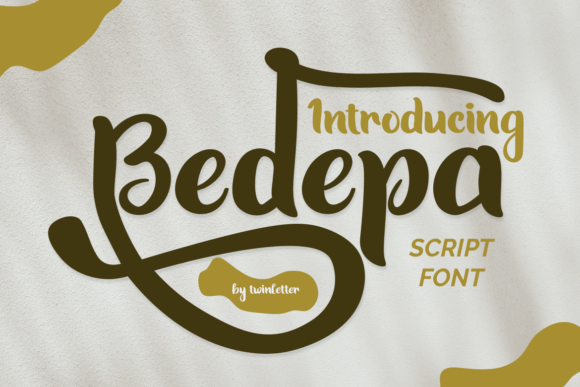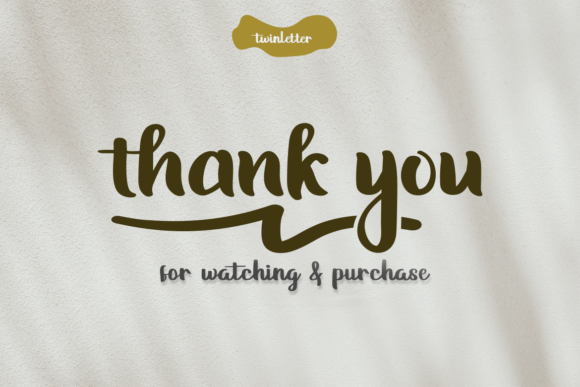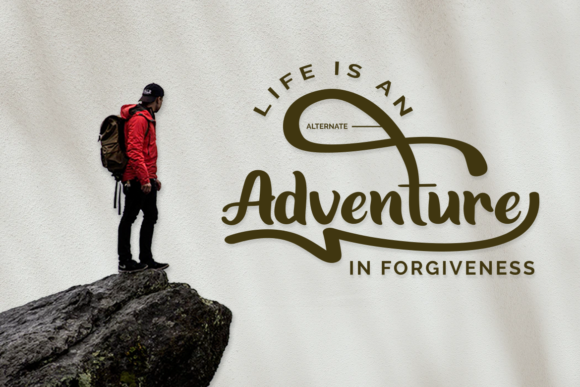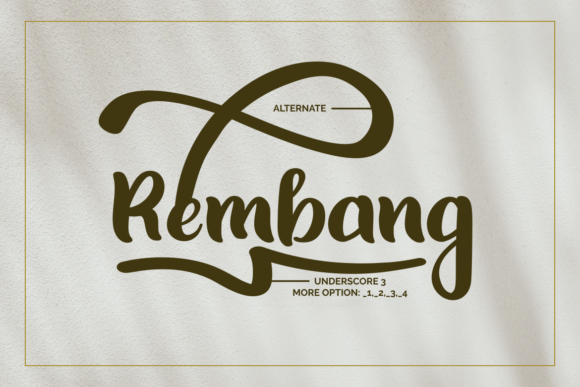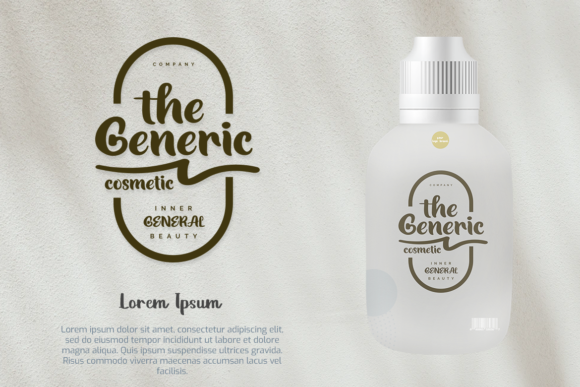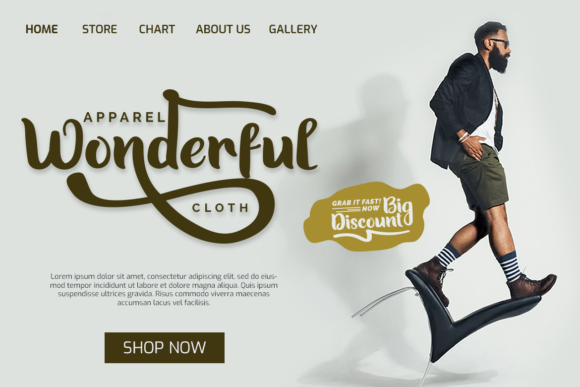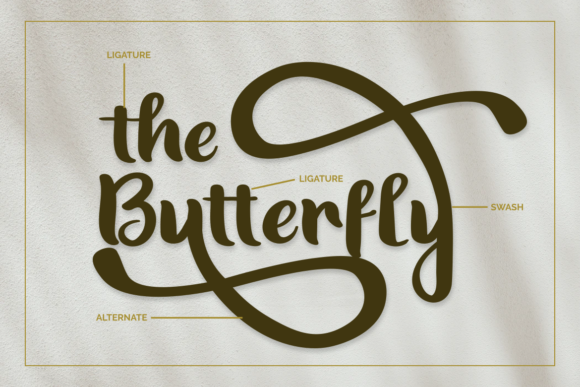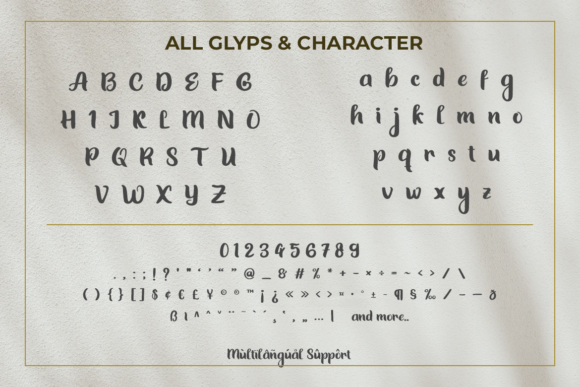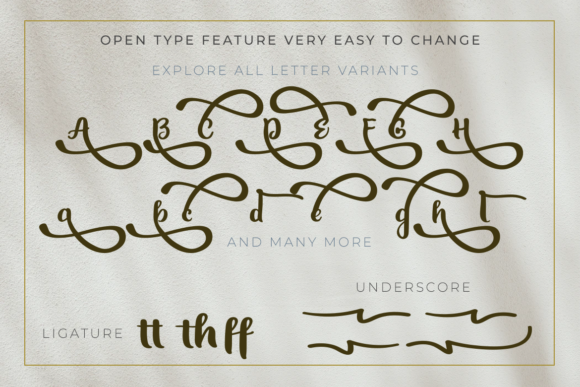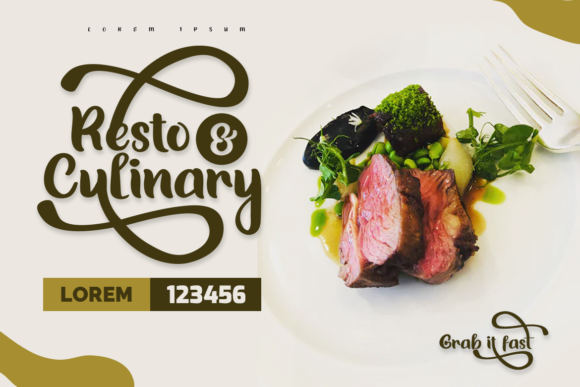
Bedepa Font
About Bedepa Font
Bedepa results out of a stunning pairing of a brush pen and pencil that makes it look incredibly endearing and authentic. Use this gorgeous and unique handwritten font to bring any DIY project to life!
This font is PUA encoded which means you can access all of the great glyphs and swashes with ease! It also features a wealth of special features including alternate glyphs and ligatures.